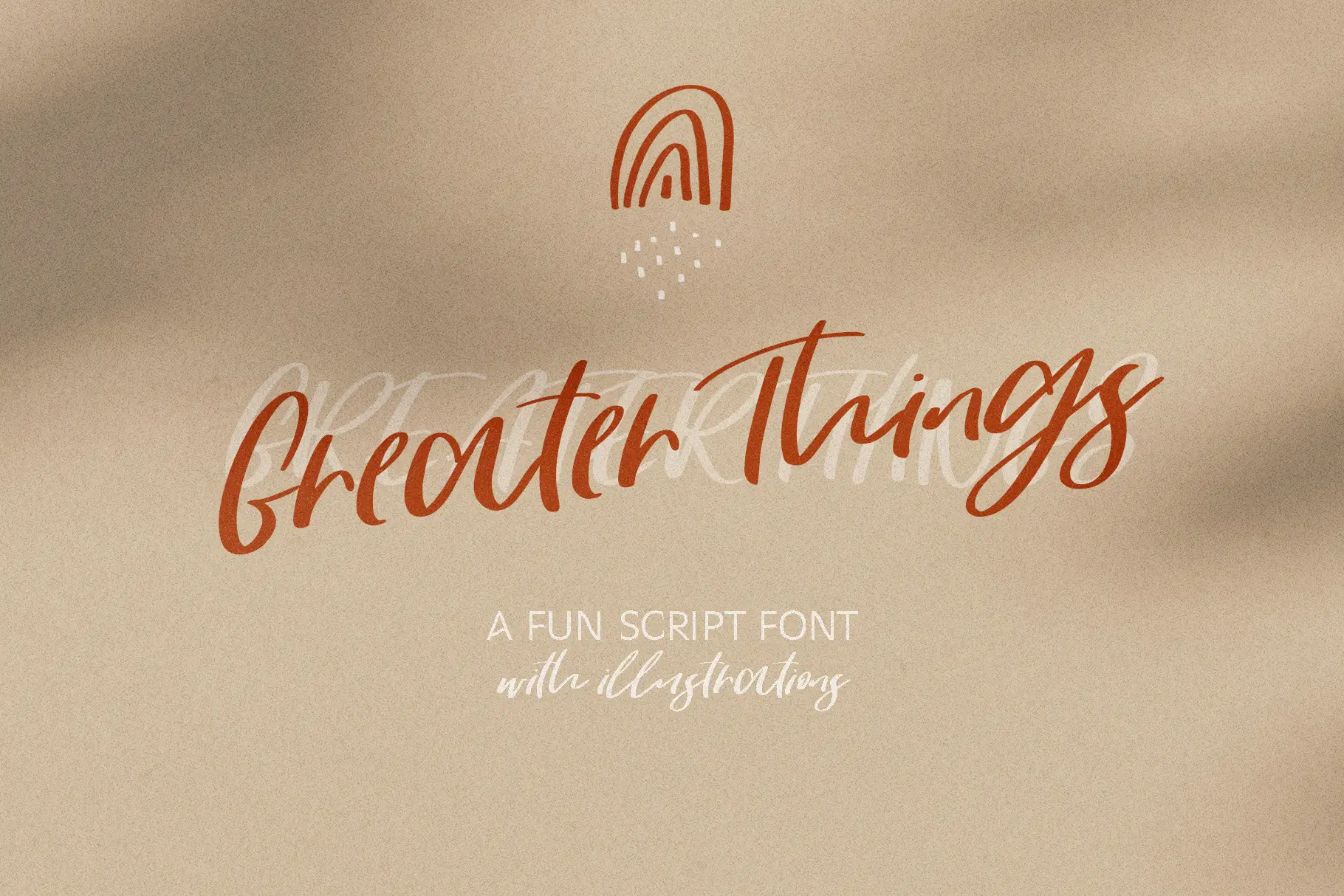
Greater Things Script Font By Creativeqube
Introducing the Greater Things Script Font by Creativeqube, a beautifully crafted typeface that adds elegance and personality to your projects. This script font features a flowing, handwritten style that is perfect for a variety of applications.
• Styles: Script
• Weights: Regular
• Ideal for branding, logos, and invitations.
• Perfect for web design, print materials, and UI elements.
• Combine with sans-serif fonts for a modern look.